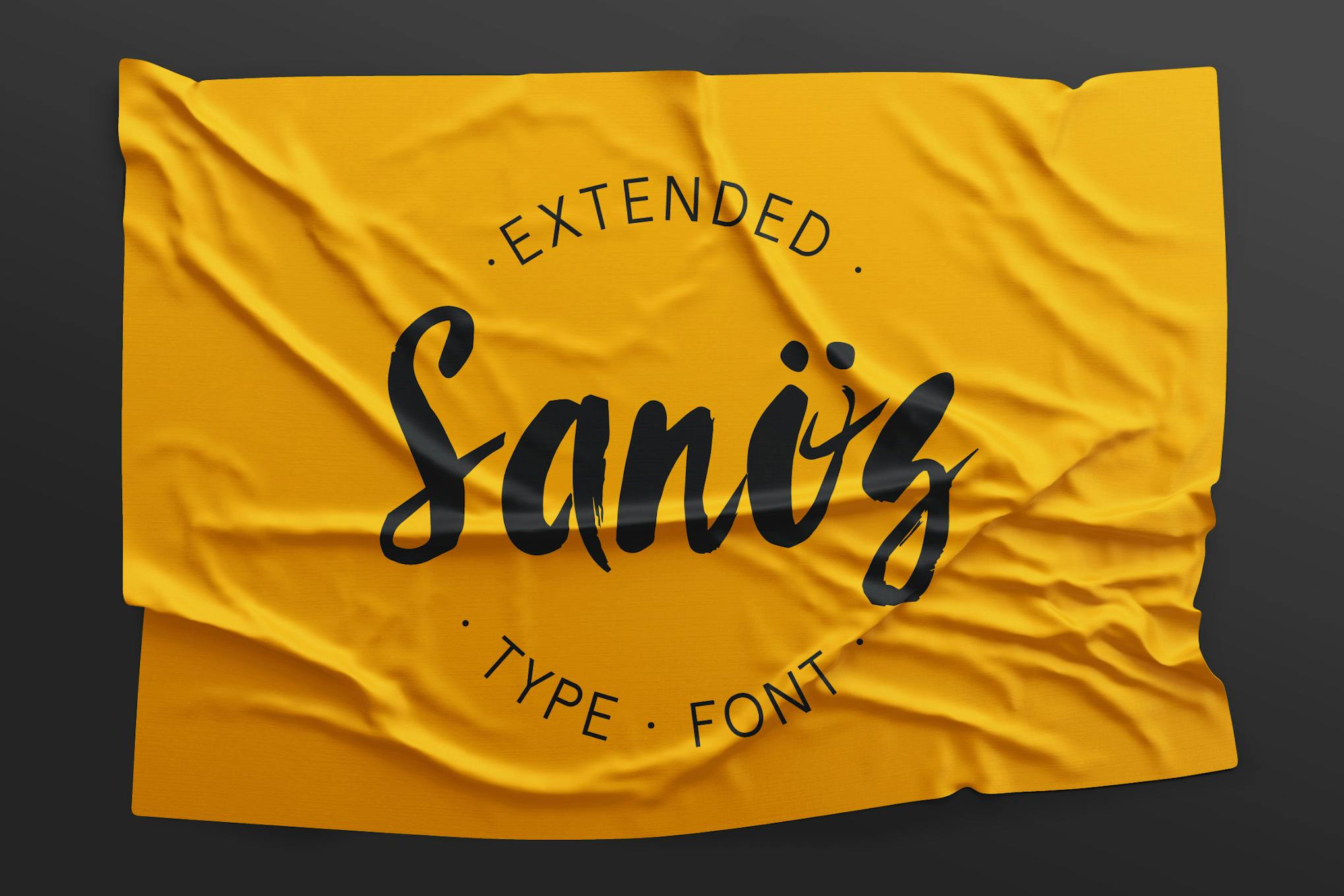
Sanös Extended Script Font is a versatile typeface designed to elevate various design projects. With its normal spacing and adaptability to any size, it offers a graceful and stylish appearance for both digital and print applications. The included documentation ensures users can seamlessly integrate the font into their work, enhancing readability and aesthetics in creative endeavors.